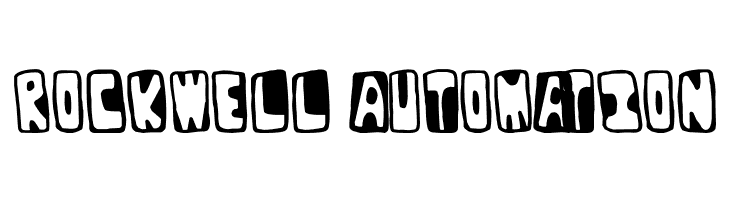
TECHNIQUE-Inverse Font
- Font: TECHNIQUE-Inverse
( Fonts by Spork Thug Typography - Josh Wilhelm - www.lifewithouttaffy.com/taffy/blog )
A playful, bold font with irregular patterns and a hand-drawn style.